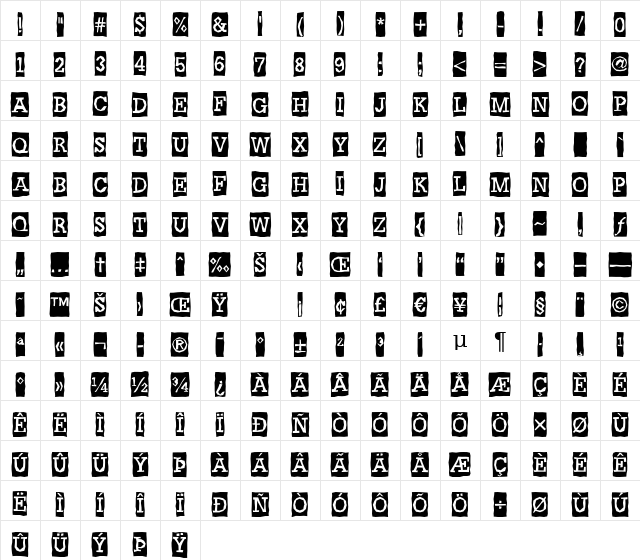
Complete a_NoterCmBrk Regular glyph index. Displaying only characters natively supported by a_NoterCmBrk Regular font.
a_NoterCmBrk is a composed and adaptable typeface that performs quietly and consistently across a wide range of design contexts.